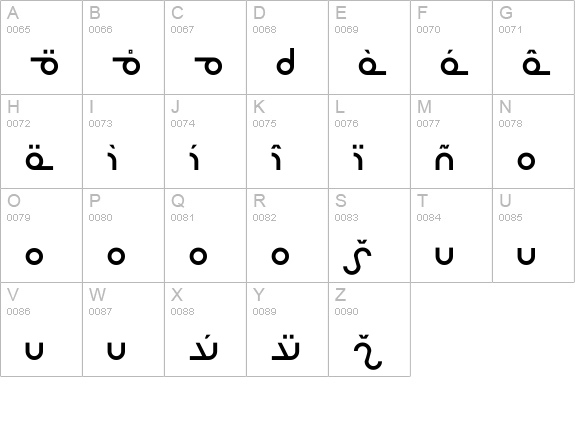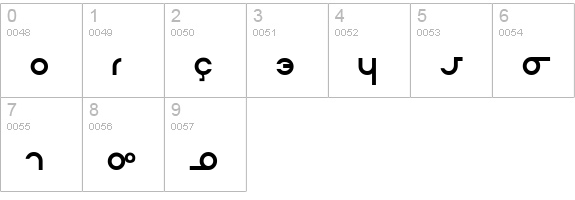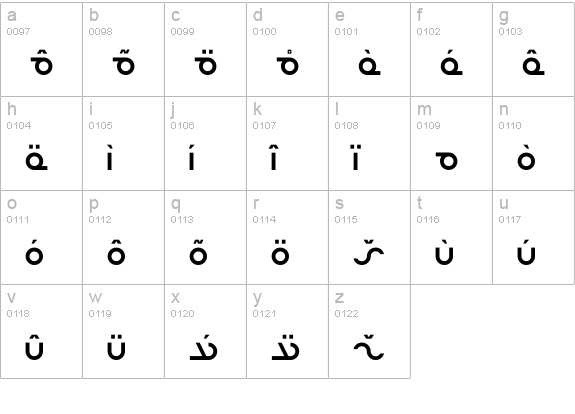
Masterdom font is a stunning display typeface that exudes elegance and sophistication. With its clean lines and sharp angles, this font is perfect for creating eye-catching headlines, logos, and branding materials. The bold and distinct characters of Masterdom font will make your designs stand out from the crowd. What sets Masterdom font apart is that it is not only visually appealing but also versatile and easy to work with. Whether you're designing a modern website or a classic print layout, this font will adapt seamlessly to your project's needs. The best part is that Masterdom font is completely free to download at FontsMarket.com. This means you can elevate your design game without breaking the bank. Don't miss out on this opportunity to add a touch of sophistication to your projects with the Masterdom font. Download it today and let your creativity shine!